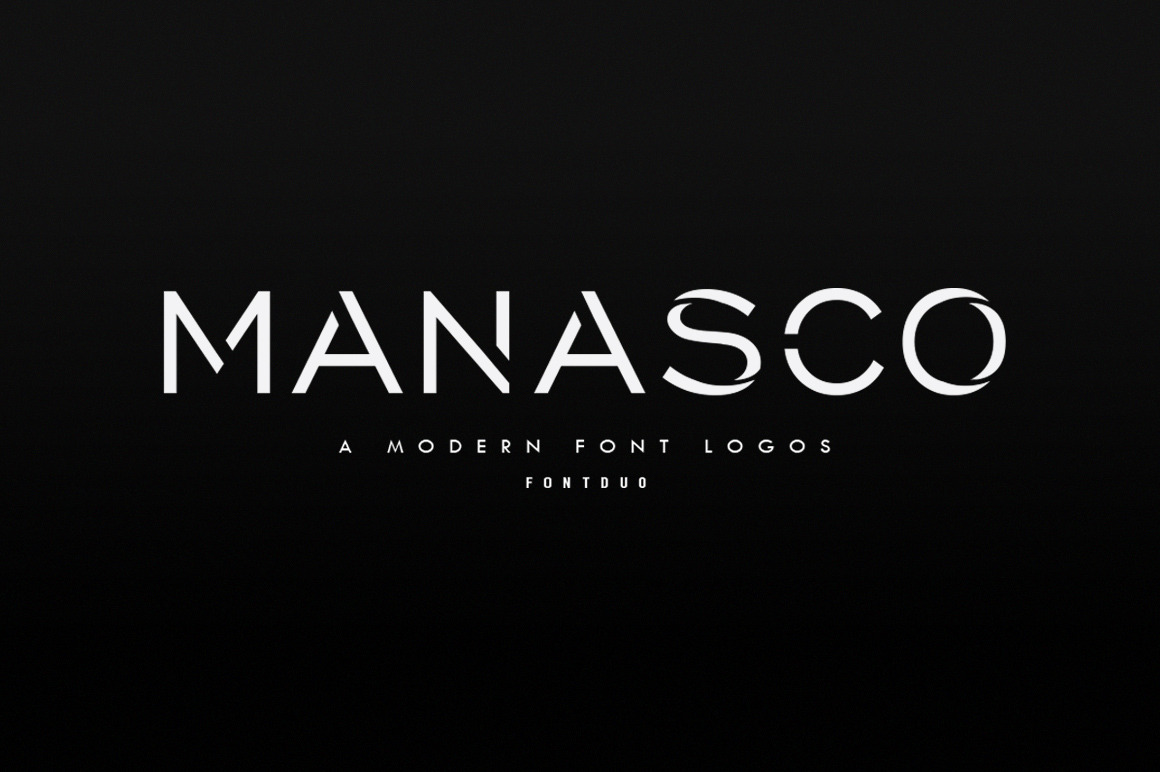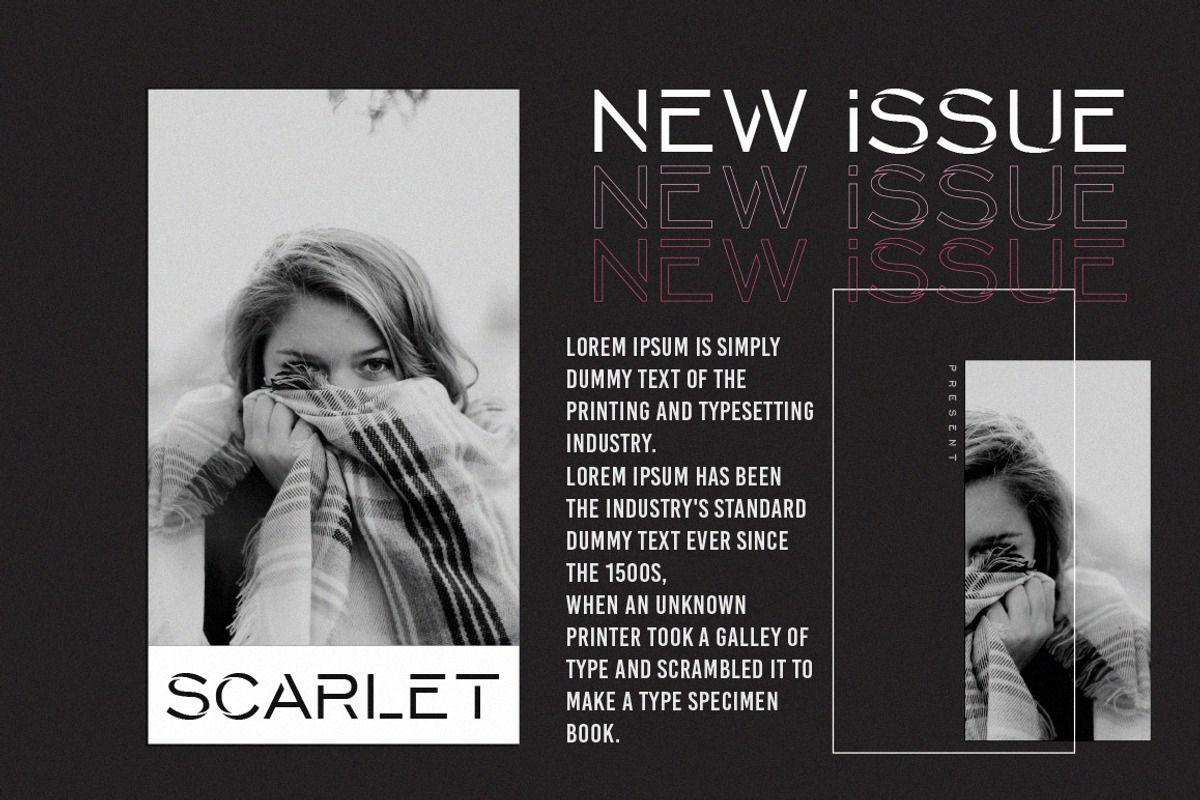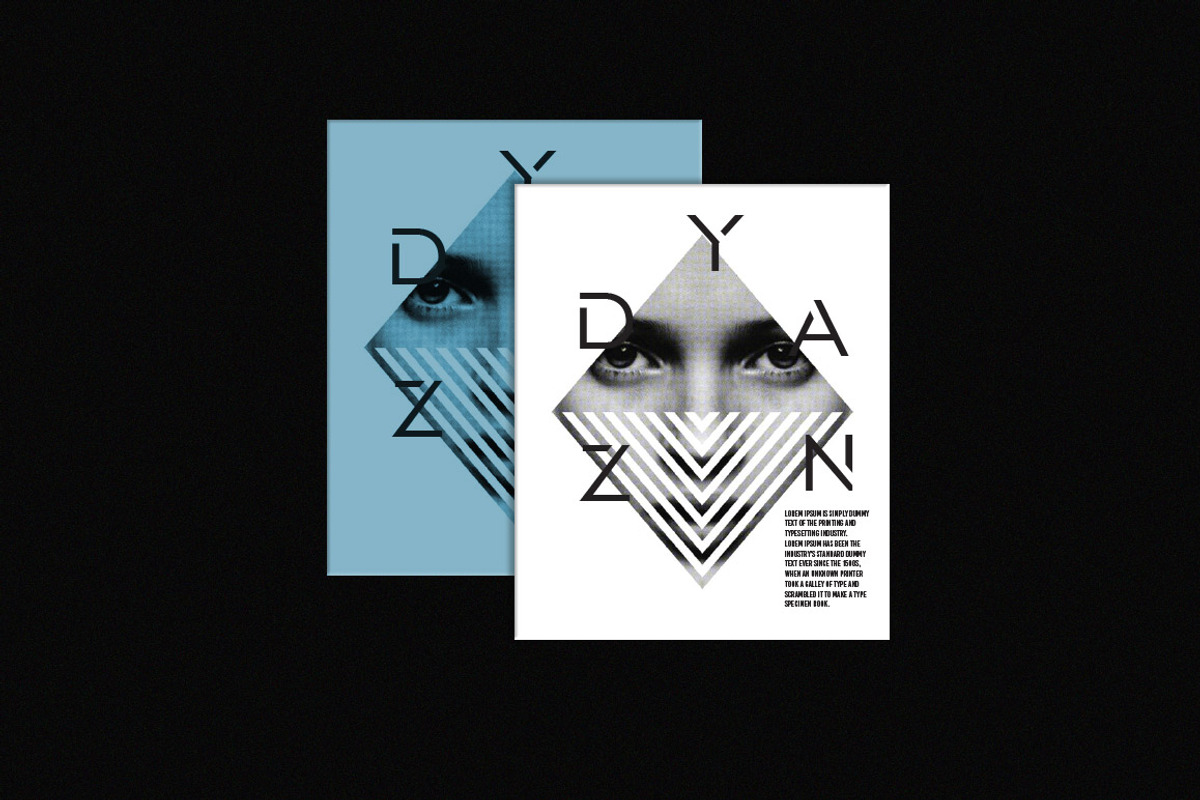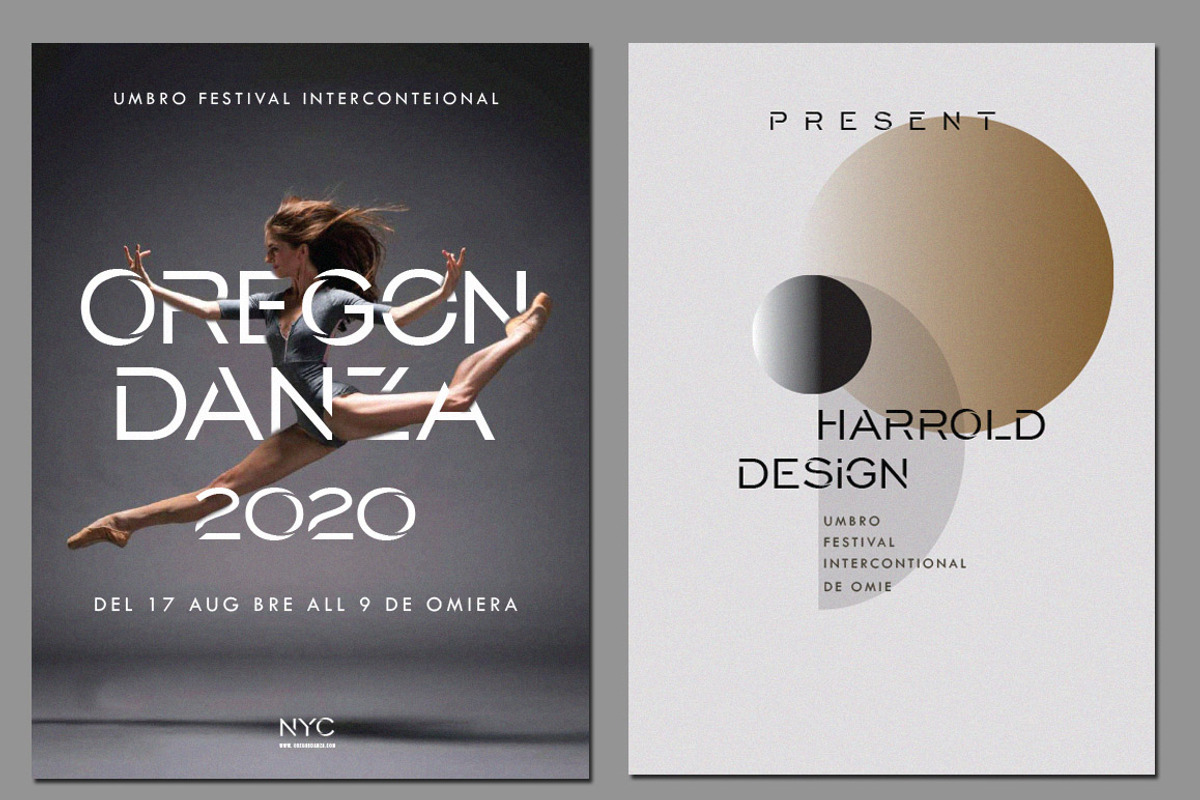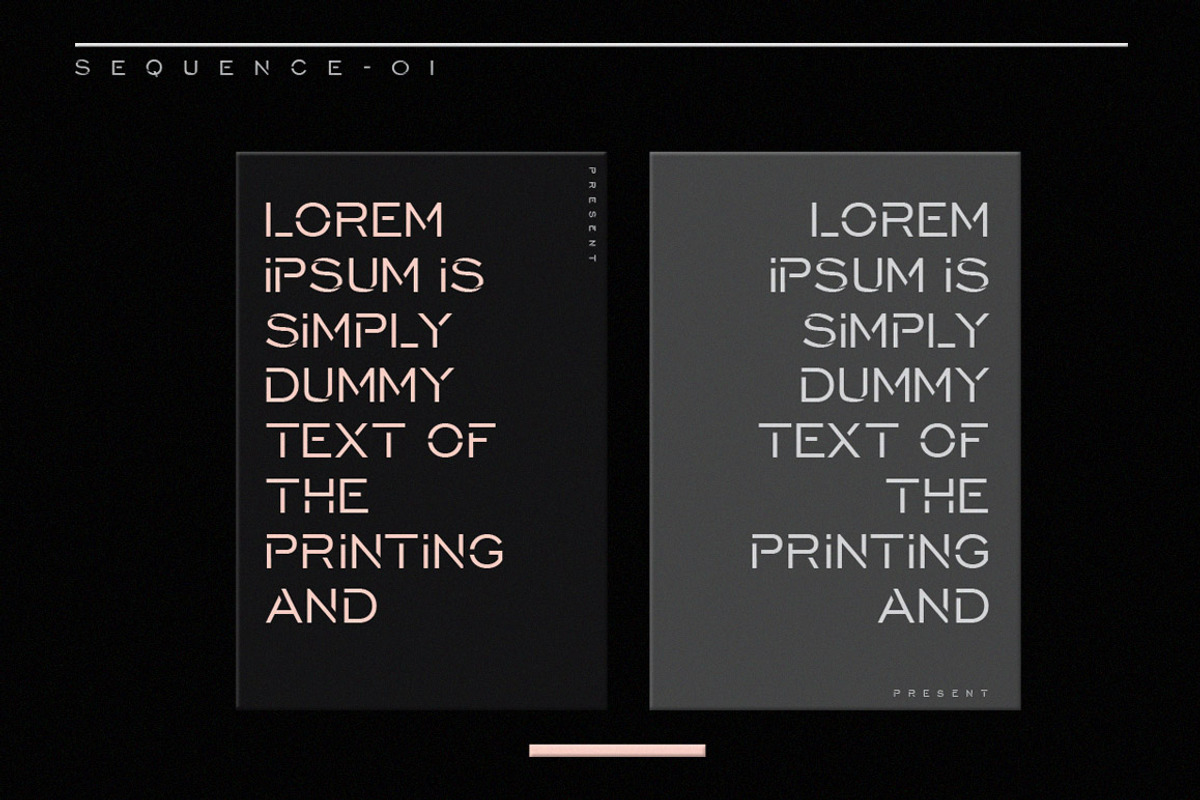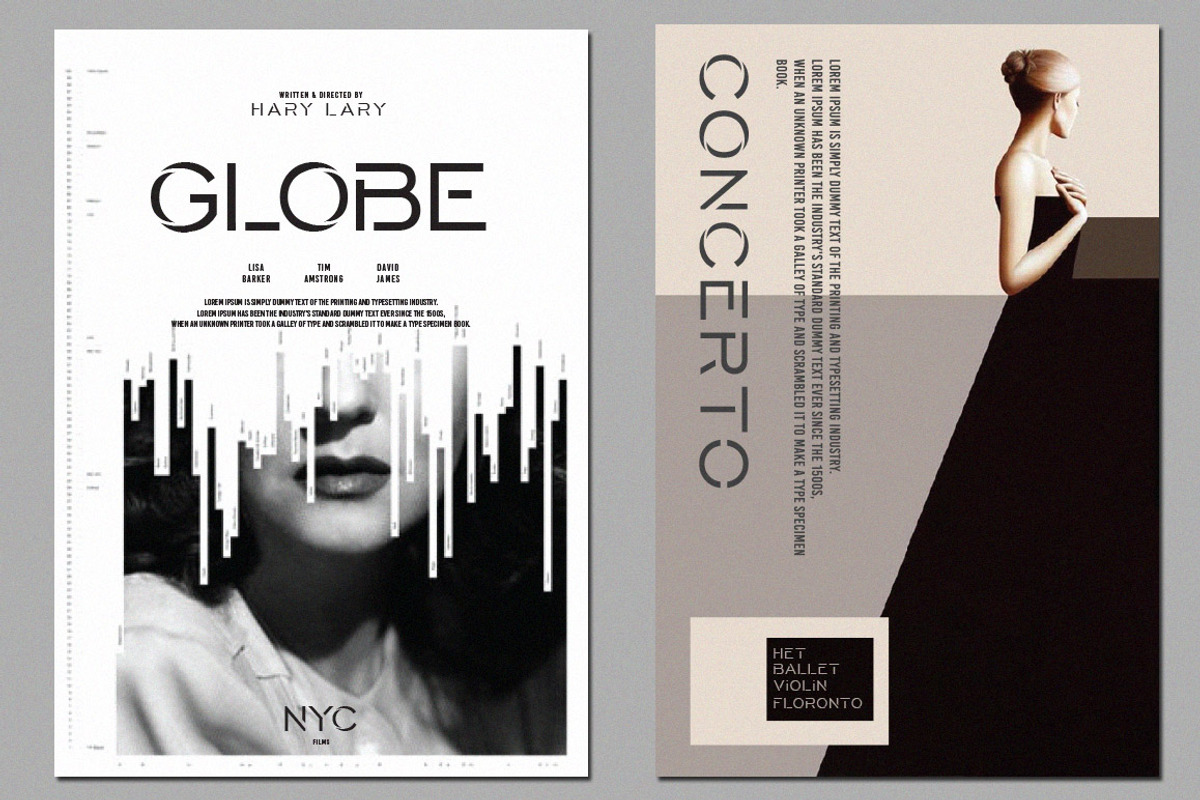
Manasco Sans Serif / Font Logos / Font Duo
Manasco is a simple and modern sans serif typeface for a minimalist logo design based on geometric shapes.
Manasco consists of two different fonts, so you can expand according to your project.
This font is suitable for branding, logos, headlines, titles, taglines, Game, wedding invitations, invitation card, layout, content, instagram, business card, Print Ads, Digital Ads, Promotional Products a number of applications, magazines, posters, films, each form of the font gives you full range to explore a number of applications, and each letter gives a real modern, simple and elegant feel for any project.
- Alternates Character
Stylistic Alternates: change any letters, open the glyphs panel and you can choose the letter as needed.
Contextual Alternate: Automatically updates all the first & last letters and adds a complete look that is unique to any word. Imitating calligraphic styles and true font signatures when the last letter is always slightly different from the others.
Standard Ligatures :If you have opentype software, 'Discretionary Ligatures' can be turned on for the Script fonts, which will automatically switch standard letter pairs into the provided ligatures.